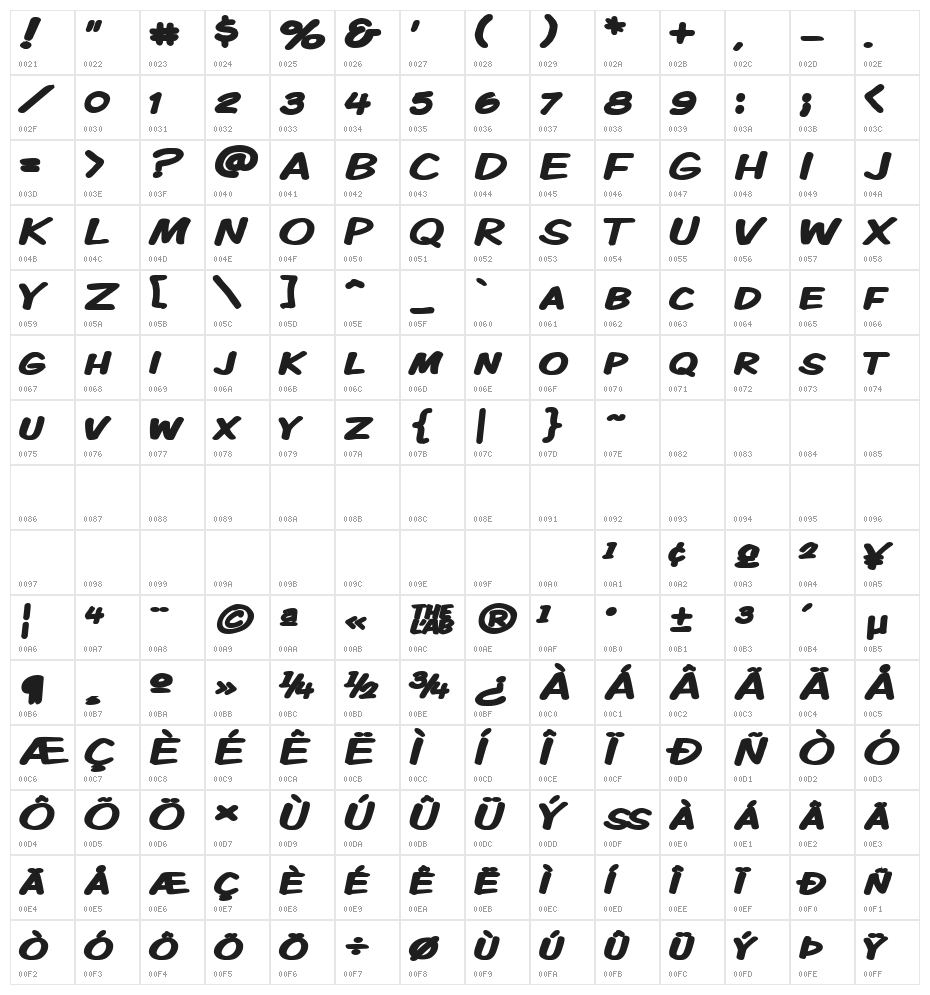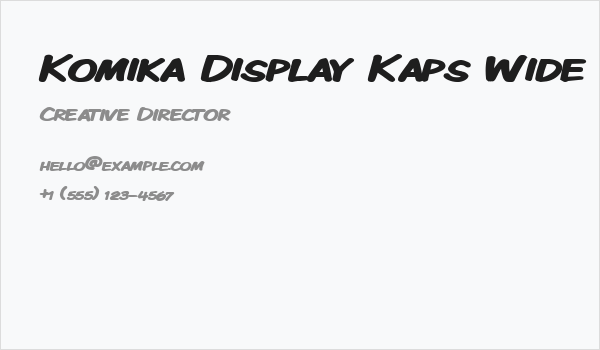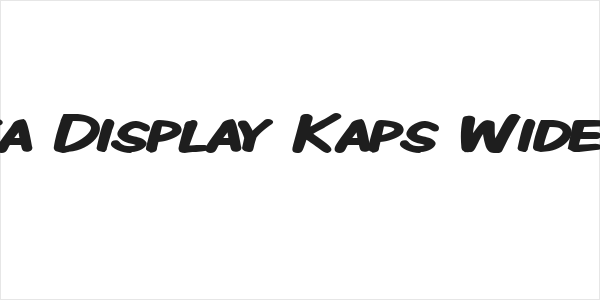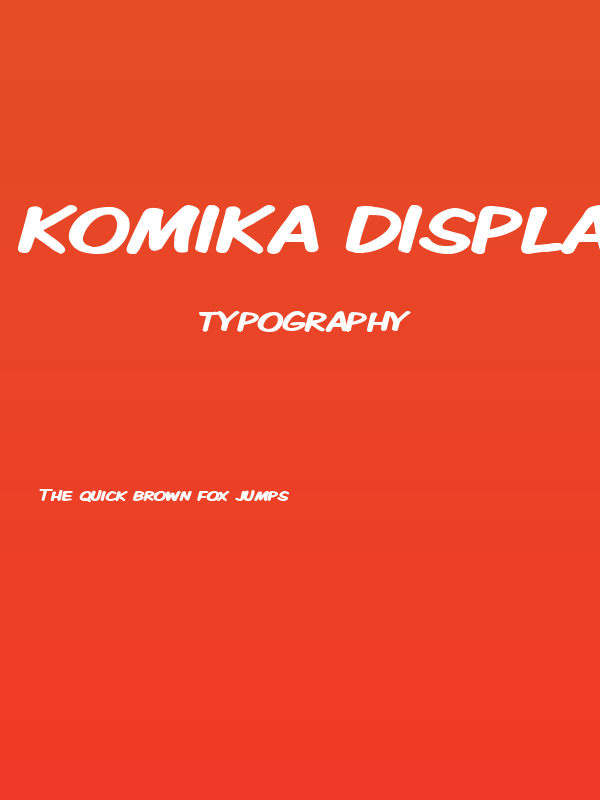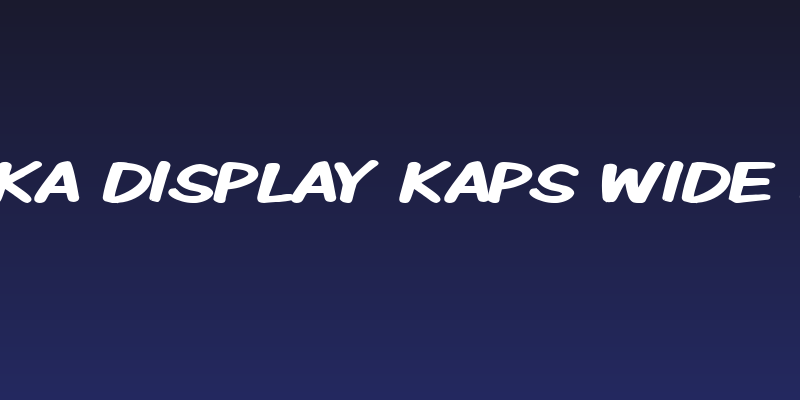
Komika Display Kaps Wide Bold Font
Komika Display Kaps Wide Bold Description
This font features a bold and playful style with a distinctly wide and rounded appearance. The characters are designed with a smooth, flowing quality that gives them a cartoonish and friendly vibe. The uppercase letters are prominent and slightly slanted, adding a dynamic feel to the text. The numbers and special characters maintain the same boldness and rounded edges, ensuring consistency across all glyphs. This font is highly legible and stands out due to its thick strokes and exaggerated curves, making it suitable for eye-catching designs.
| Proposed Projects | Ideal for comic books, children's books, playful branding, and eye-catching posters. |